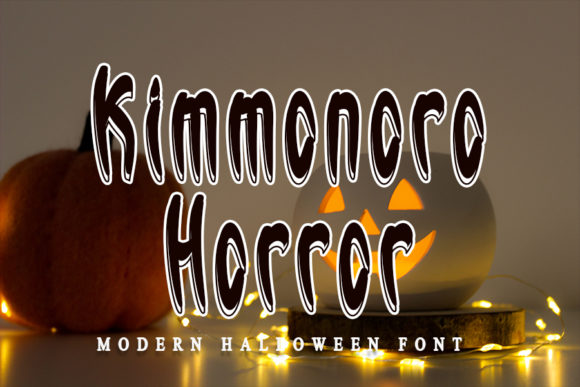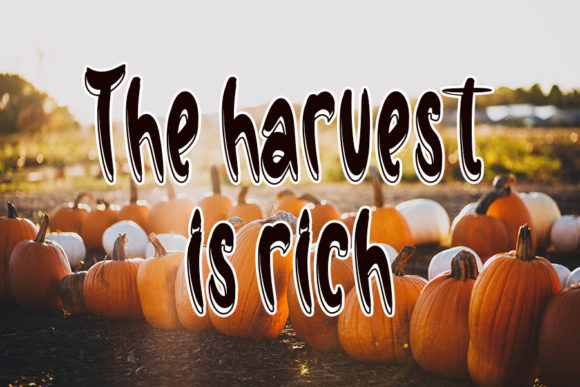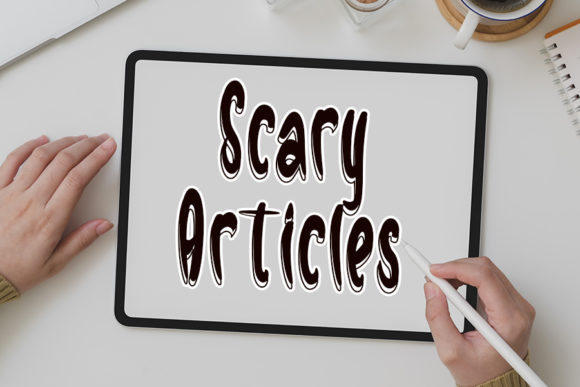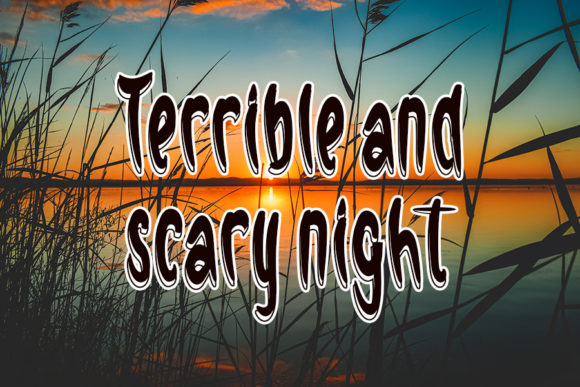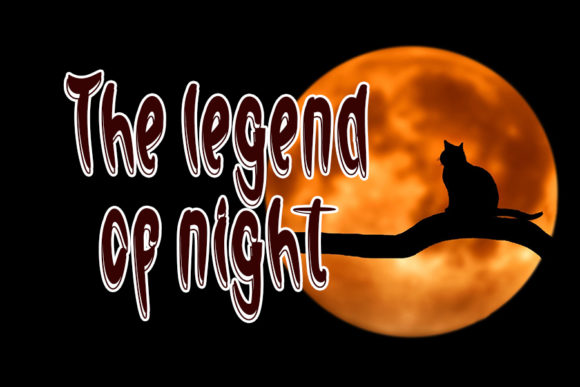
About Kimmonoro Horror Font
Kimmonoro Horror is a handwritten font with a modern style. It was designed for a variety of needs, but mainly for Halloween designs, due to its spooky and quirky style.